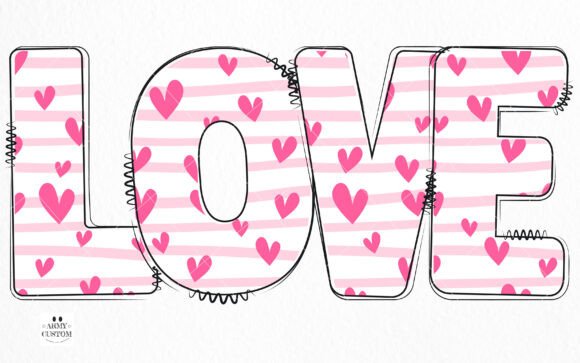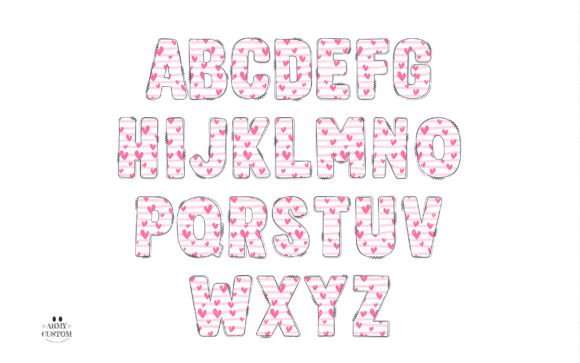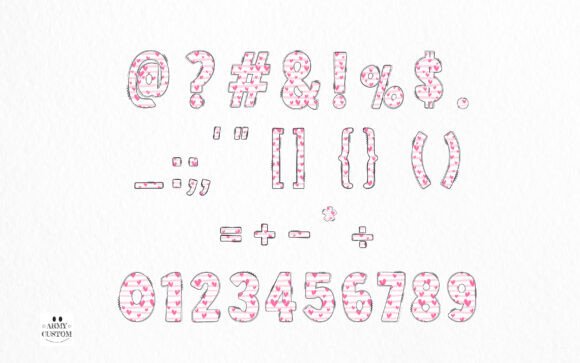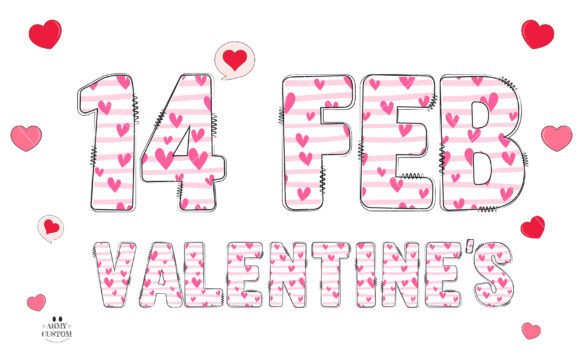
Introduction to Love Valentine’s Army Stripe Font Font
Fonts play a crucial role in design, and the Love Valentine’s Army Stripe Font font is a typeface that brings both character and versatility to any project. Whether you’re working on a branding project, a website, or a print design, the Love Valentine’s Army Stripe Font font offers a unique style that can elevate your work.
Immerse yourself in affection with the enchanting “Valentine’s Army Alphabet” font.
Every stroke of this doodle font tells a tale of love, making it the perfect way to express your sentiments on the day dedicated to love With each letter permeated by intricately doodled heart patterns, it’s a font that’s sure to touch your heart.
Key Features of Love Valentine’s Army Stripe Font Font
Why Choose Love Valentine’s Army Stripe Font Font?
The Love Valentine’s Army Stripe Font font is more than just a typeface – it’s a design tool that helps you communicate your message with style and clarity. Its unique character set and versatile design make it suitable for a wide range of applications, from elegant invitations to bold headlines.
With its carefully crafted letterforms and balanced proportions, the Love Valentine’s Army Stripe Font font ensures readability and visual appeal across all mediums.
What makes Love Valentine’s Army Stripe Font font special?
The Love Valentine’s Army Stripe Font font stands out with its unique design, exceptional readability, and versatility across various design applications.